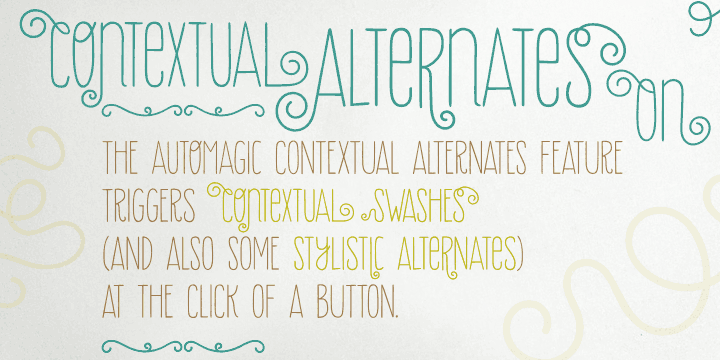
Berimbau
Berimbau by PintassilgoPrints
About Berimbau Font Family
Berimbau is a whimsical narrow hand-drawn typeface. It’s stylish, versatile and loaded with amazing OpenType features that do their magic in OpenType savvy applications. Its sprightly swashes and twisting stylistic alternates (say that 3 times fast!) play together to deliver a really cool contextual feature that, in a push-button way, substitutes the first letter in a word with its left swash version and the last letter with its right swash version (please type a space before and after the words).The feature also applies stylistic variants to some of the intermediate letters. Which button to push? The Contextual Alternates one! If you're not a one-click-way-person you can pick your preferred glyphs through the glyphs palette. There you’ll find at least 4 variations for each letter: left swash, right swash and 2 regular forms that correspond to the upper and lower case keys. Some letters also have a 5th variation that acts as stylistic alternate. This font is conveniently packed with the ‘access all alternates’ functionality, so when you click on a glyph at the glyphs palette you’ll see all variations available for it, making it easier to choose the one that will fit better. A bold weight was made to provide that extra-strength when a bit of… boldness is needed. Please note that it doesn’t have the advanced OpenType features (but is still very charming!). Yet, both weights have a handy set of ornaments for added yumminess.